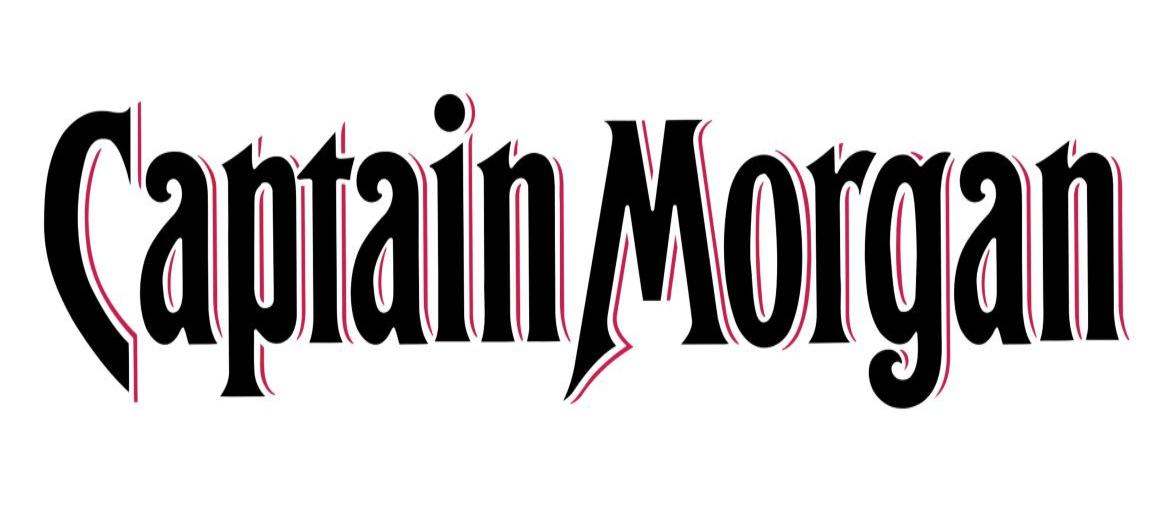
Captain Morgan Font
What Font is Used in the Captain Morgan Logo?
Captain Morgan font uses the distinctive Thaleia typeface, featuring elegant, flowing letterforms with a vintage nautical flair that evokes seafaring adventure and Caribbean heritage. This premium font’s ornate serifs and classic proportions perfectly capture the brand’s swashbuckling spirit and rum-making tradition. The sophisticated yet adventurous style reflects Captain Morgan’s identity as a premium spiced rum brand inspired by the legendary 17th-century Welsh privateer, Sir Henry Morgan.
About Captain Morgan
Captain Morgan is a spiced rum brand created in 1944 by the Seagram Company, named after Welsh privateer Sir Henry Morgan who became Lieutenant Governor of Jamaica. Produced in Jamaica using Caribbean rum blended with spices and flavors including vanilla and caramel, Captain Morgan became one of the world’s best-selling rum brands. Now owned by Diageo, the brand’s iconic mascot depicts the captain in his characteristic pose, embodying adventure and celebration.